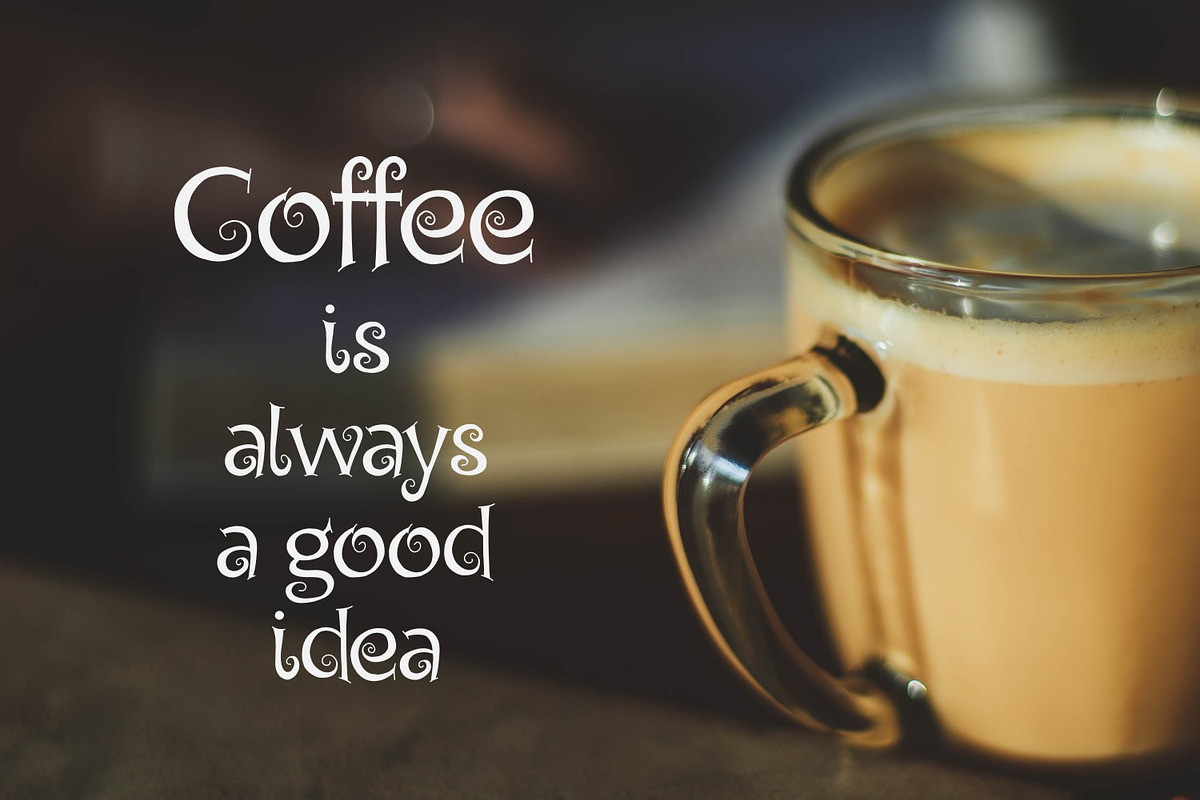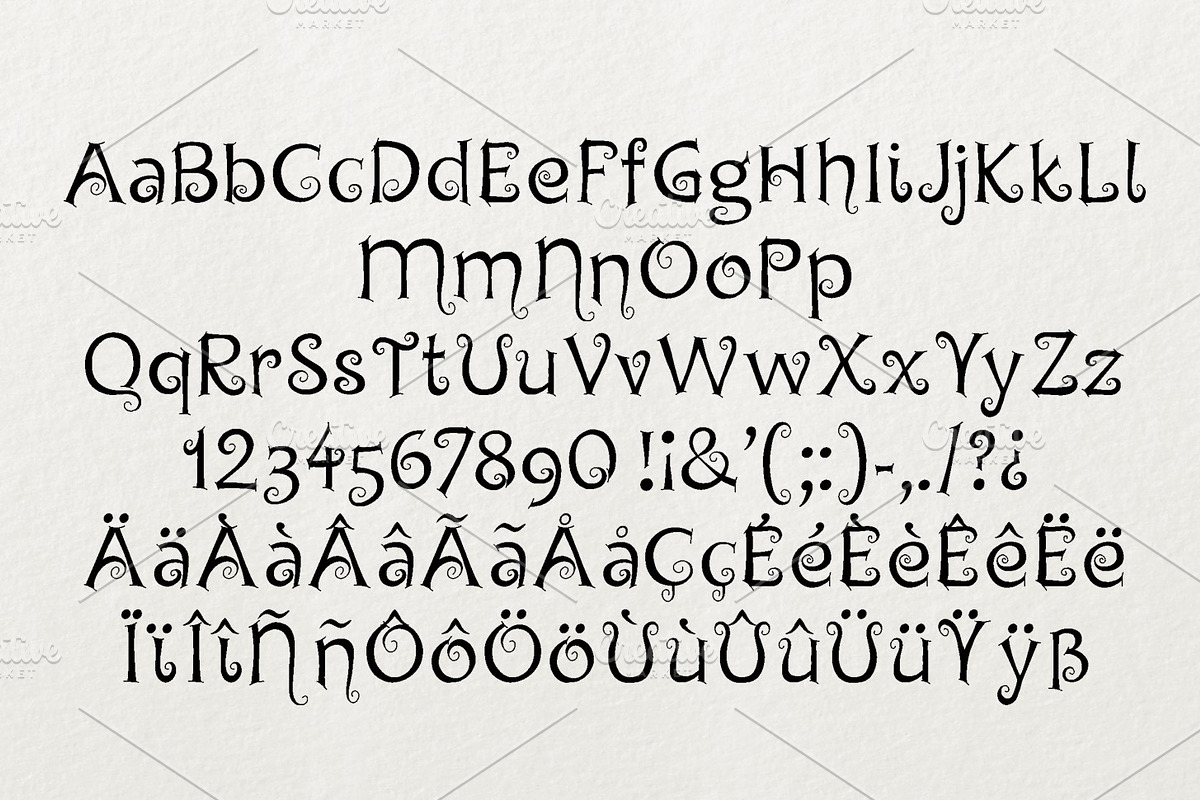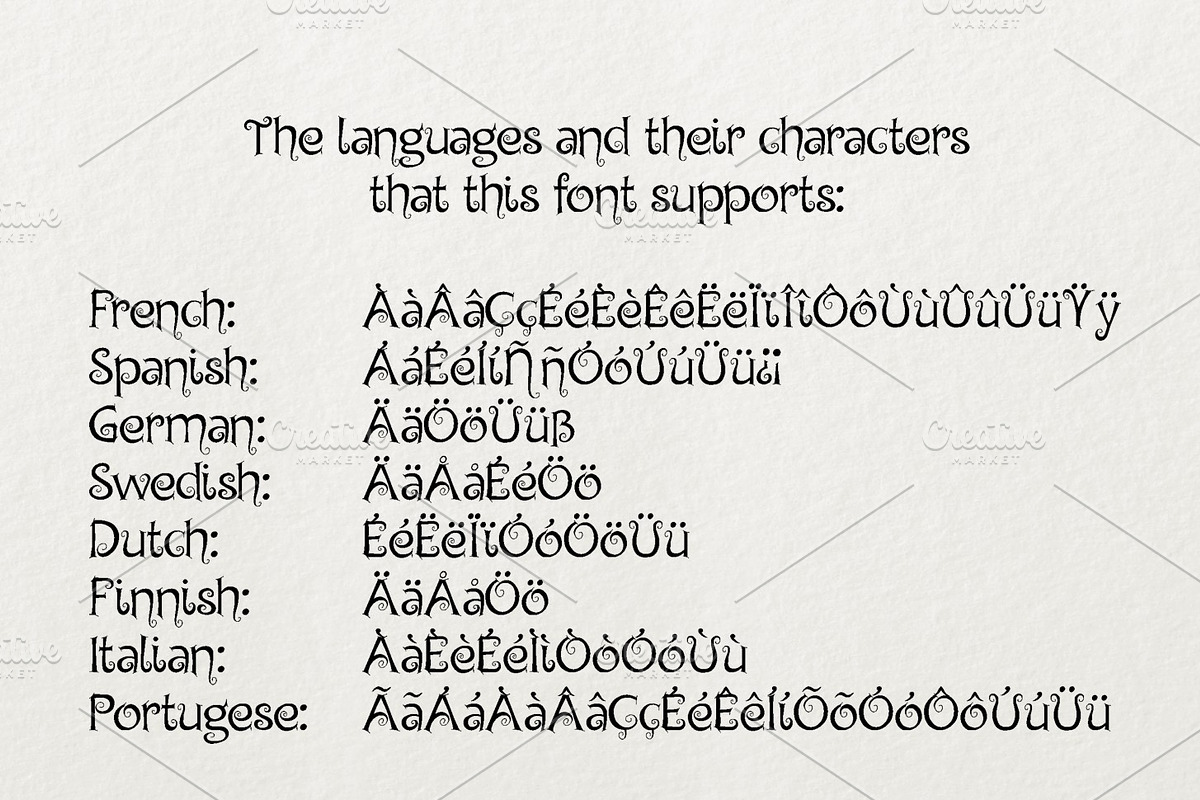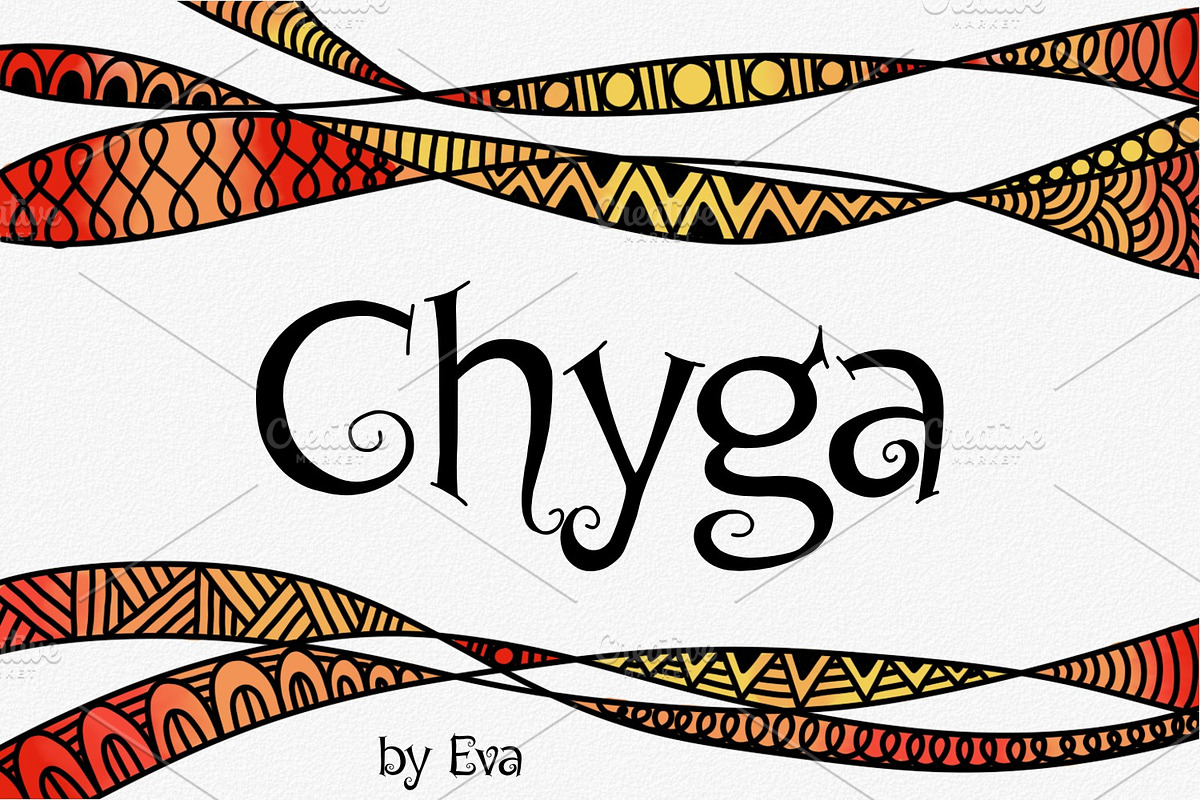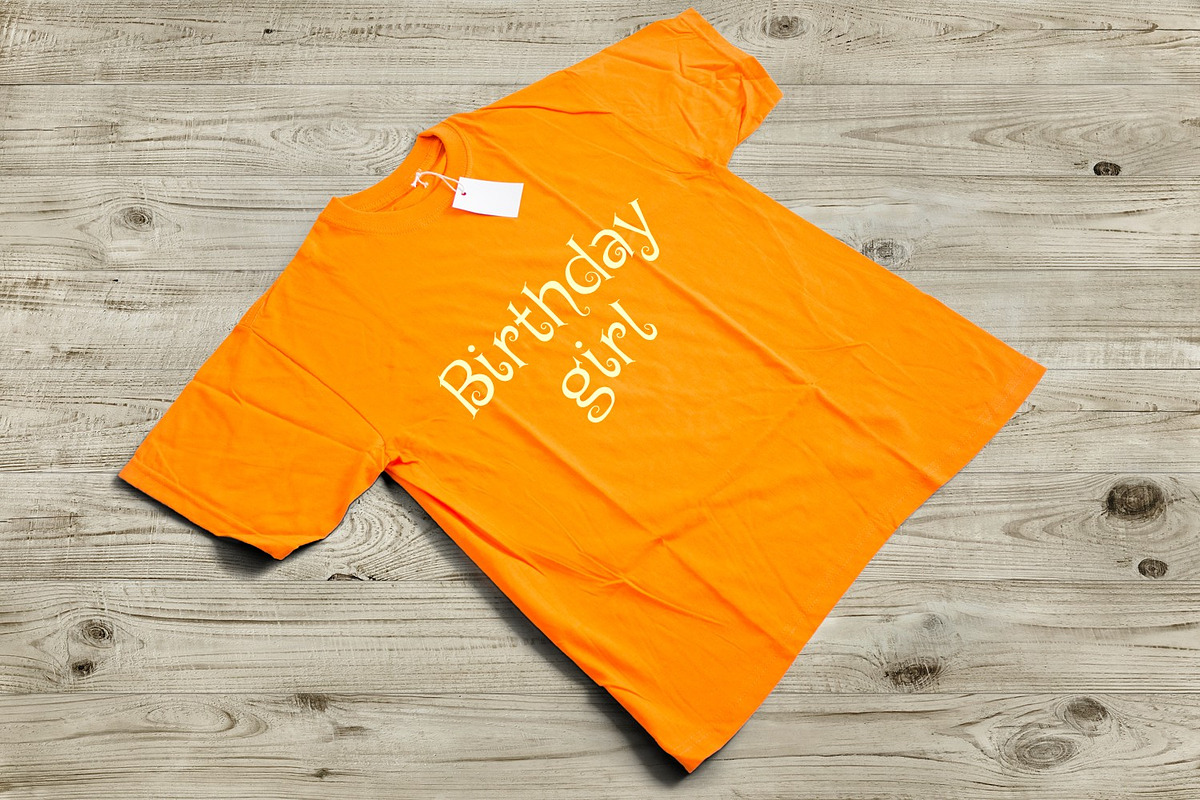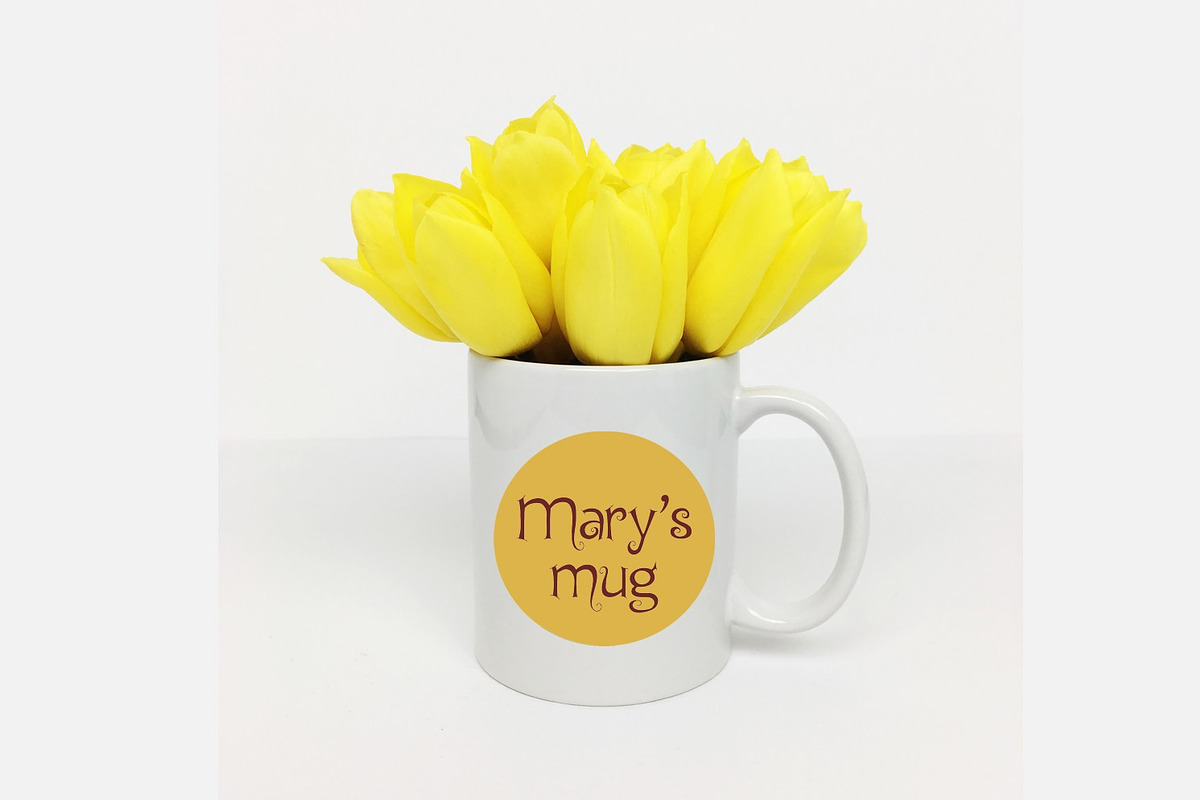
Chyga
Introducing Chyga handwritten typeface, updated with Europian characters.
Chyga is perfect for titling, flyers, logos, invitations, product packaging, branding projects, homeware designs - or simply as a text overlay to any background image.
Chyga by Digital Typeface Studio fits naturally into Branding, posters, packaging, typography.